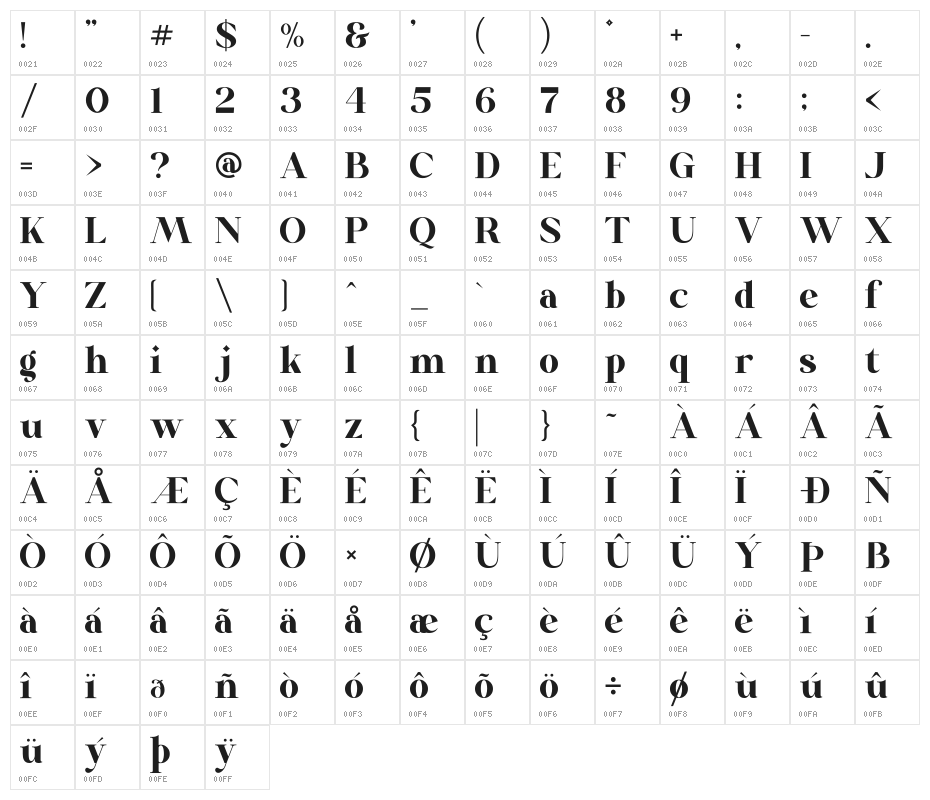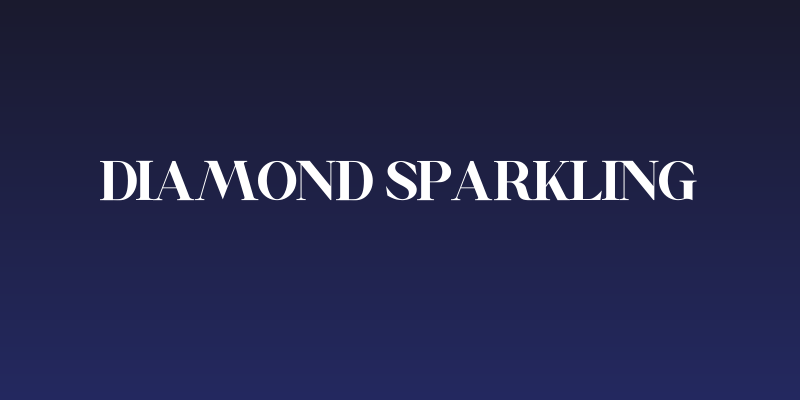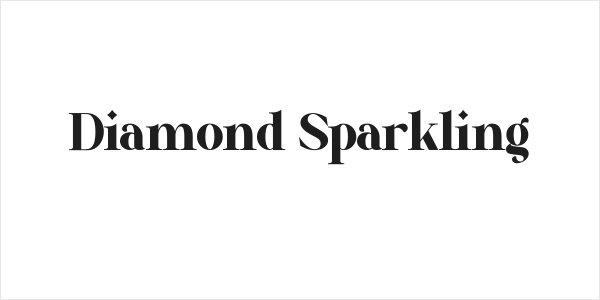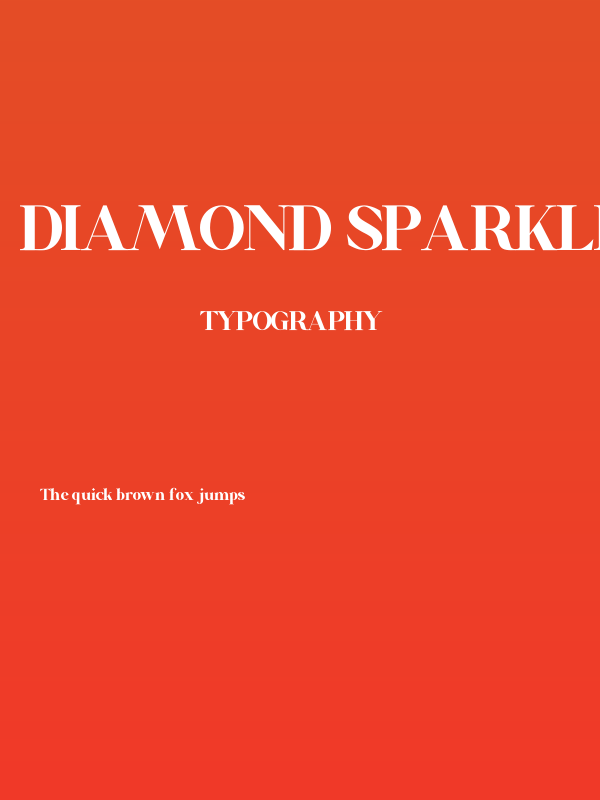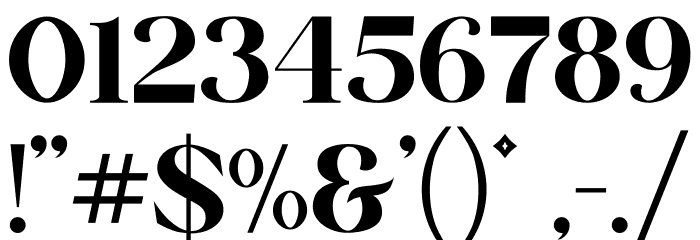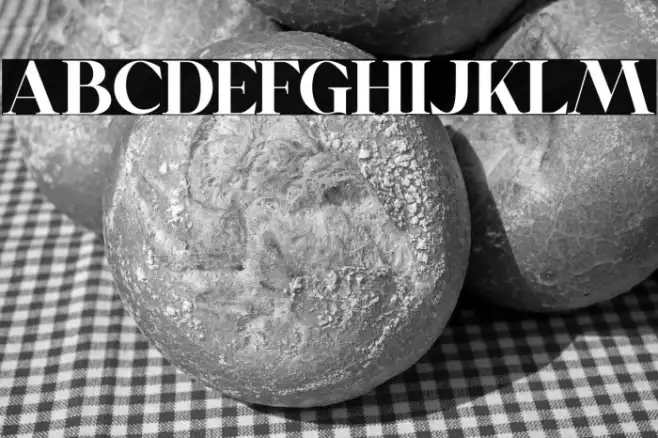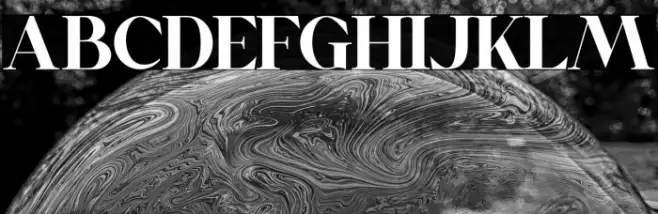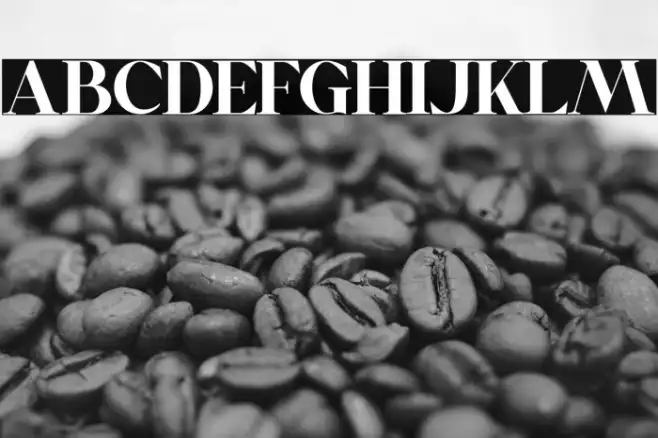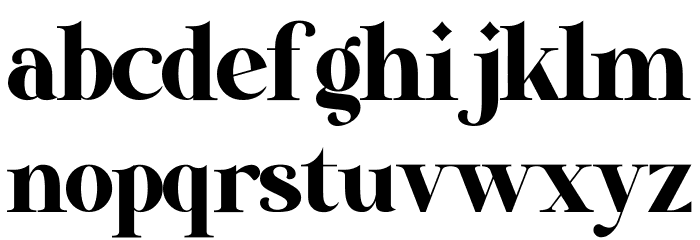
Diamond Sparkling Font
Diamond Sparkling Description
This font exudes a classic elegance with its high contrast between thick and thin strokes, making it ideal for sophisticated and formal designs. The serifs are sharp and pronounced, adding a touch of refinement. The uppercase letters are bold and commanding, while the lowercase letters maintain a graceful flow. The numerals are well-proportioned, ensuring readability. Special characters are stylishly integrated, enhancing the overall aesthetic. This font is perfect for projects that require a touch of luxury and timeless appeal.
| Use Case | Headlines, Logos, Editorial design |
| Proposed Projects | Ideal for luxury branding, wedding invitations, editorial design, and high-end product packaging. |